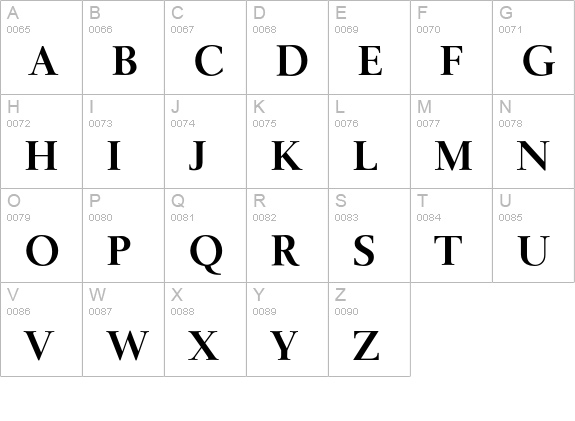
Belfast-Bold is a strong, high-contrast variant in the Belfast typeface family \xE2\x80\x94 well suited to headlines, attention-grabbing titles, and strong calls-to-action.
Belfast-Bold is a stunning and versatile font that demands attention with its bold and impactful design. Perfect for making a statement in headlines, titles, and branding projects, this font exudes confidence and sophistication. With its clean lines and modern aesthetic, Belfast-Bold is sure to elevate any design it is used in. The best part? Belfast-Bold is available for free download at FontsMarket.com, making it accessible to designers and creatives of all levels. Don't miss out on the opportunity to add this dynamic font to your collection and take your projects to the next level. Download Belfast-Bold today and unleash your creativity!